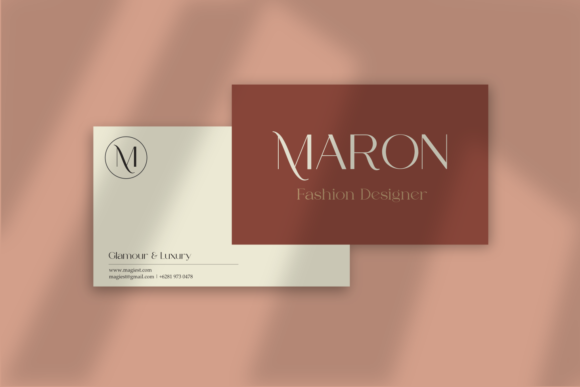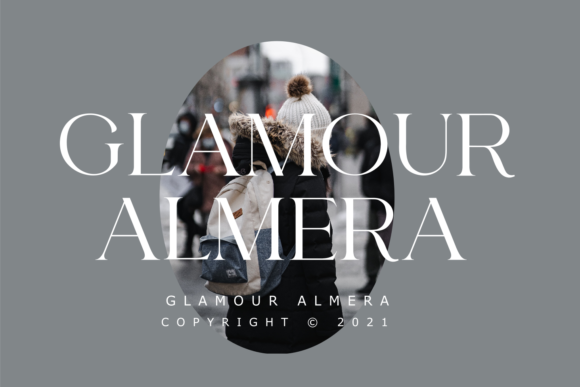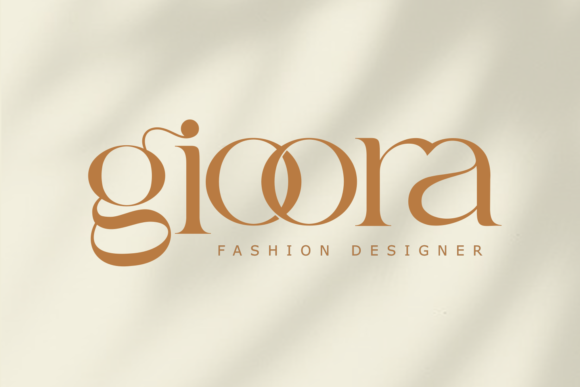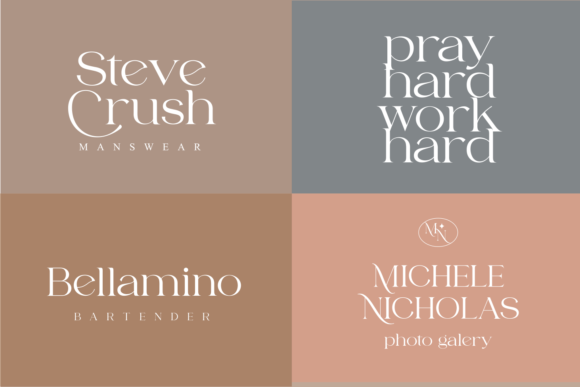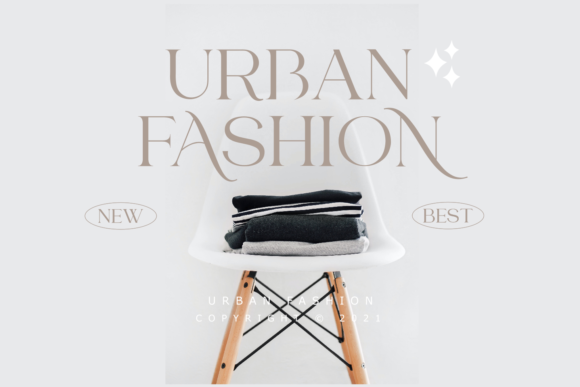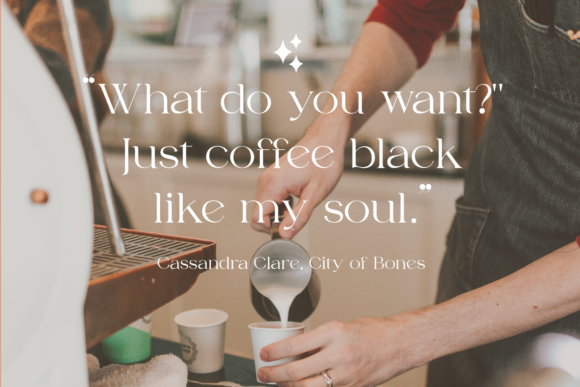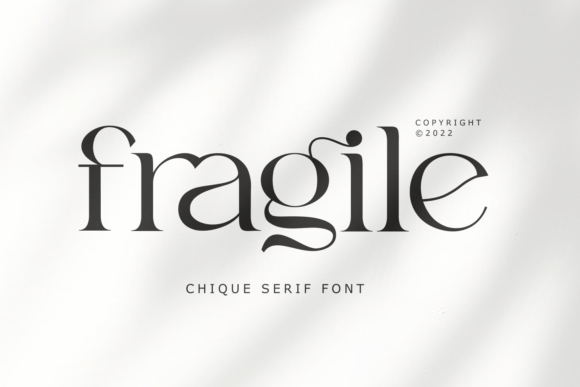
Introducing Fragile Font: Elevate Your Designs with Delicate Elegance
In the world of typography, the right font can make all the difference in transforming a design from ordinary to extraordinary. For designers and crafters seeking to infuse their projects with a touch of sophistication and elegance, the Fragile Font is an exceptional choice. This delicate and stylish serif font is not only aesthetically pleasing but also highly functional, thanks to its PUA encoding, which allows for effortless access to all glyphs and swashes.
What Makes Fragile Font Stand Out?
At first glance, Fragile Font captivates with its serene and refined appearance. Its serif design adds a classic touch to any project, making it perfect for a wide range of applications, from elegant branding and packaging to beautiful stationery and decorative crafts. The font’s delicate nature doesn’t compromise its readability, ensuring that your message is conveyed with clarity and style.
The Power of PUA Encoding
One of the standout features of Fragile Font is its PUA (Private Use Area) encoding. This means that the font includes a comprehensive range of glyphs and swashes that can be easily accessed and used to enhance your designs. PUA encoding allows designers to work more efficiently, providing the flexibility to customize and embellish their work without the need for complex workarounds or additional software.
Versatility for Designers and Crafters
Whether you’re a professional designer working on a client’s branding project or a crafter creating handmade cards and decorations, Fragile Font offers the versatility you need. Its applications are vast:
- Branding and Logo Design: Use Fragile Font to create elegant and memorable logos that stand out.
- Stationery and Invitations: Add a touch of class to your paper goods with beautifully styled text.
- Packaging: Elevate your product packaging with a sophisticated font that communicates luxury and care.
- Crafting Projects: From scrapbooking to DIY decorations, Fragile Font can add a professional and personalized touch to your handmade creations.
Tips for Using Fragile Font Effectively
To make the most of Fragile Font, consider the following tips:
- Experiment with Swashes: Don’t be afraid to explore the range of swashes available. They can add a unique flair to your designs.
- Mix and Match: Combine Fragile Font with complementary fonts for a layered look or use it as a standalone for a clean, elegant appearance.
- Adjust Size and Color: Play with the font size and color to ensure it fits perfectly with your design’s aesthetic and hierarchy.
Fragile Font is more than just a typeface; it’s a design tool that can transform your projects with its delicate and stylish serif elegance. Its PUA encoding makes it incredibly user-friendly, allowing you to focus on the creative aspect of your work. Whether you’re aiming for a classic look or a more contemporary feel, Fragile Font provides the versatility and beauty to achieve your design goals. Add it to your collection today and discover the difference it can make in your designs.